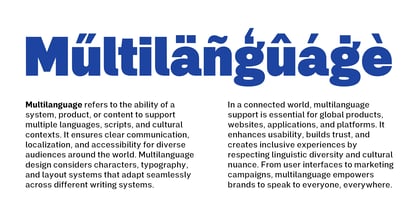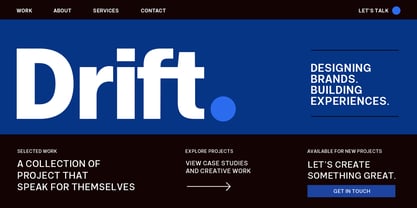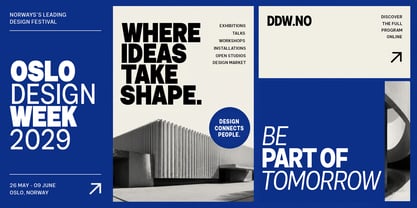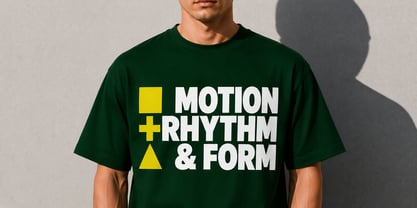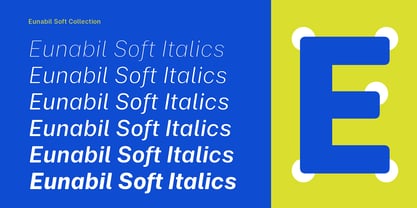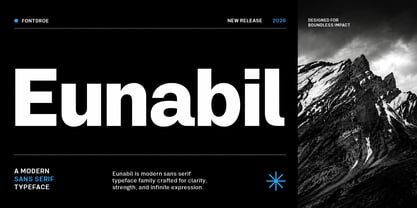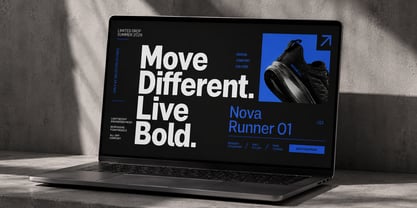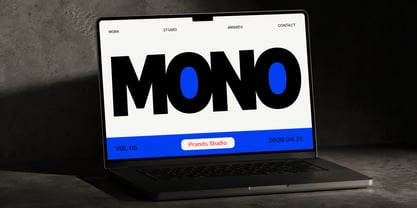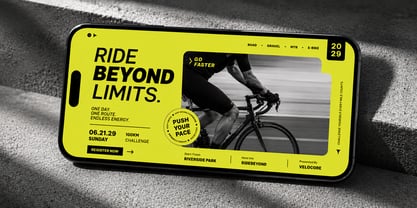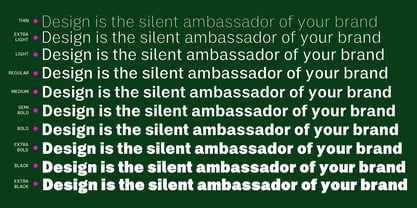
Eunabil
The Eunabil Font Family was designed by Mahdani and published by Fontdroe. Eunabil contains 202 styles and family package options.
Eunabil is a modern sans serif superfamily font, engineered for expressive typography and high-performance branding. Featuring 10 weights from Thin to Extra Black, 5 widths from Condensed to Expanded, a dedicated Soft Collection, true Italics, Variable Font technology, Featured Alternates and Ligatures, plus extensive Multilingual Support, Eunabil delivers exceptional flexibility for editorial design, branding, packaging, digital interfaces, and impactful display typography.